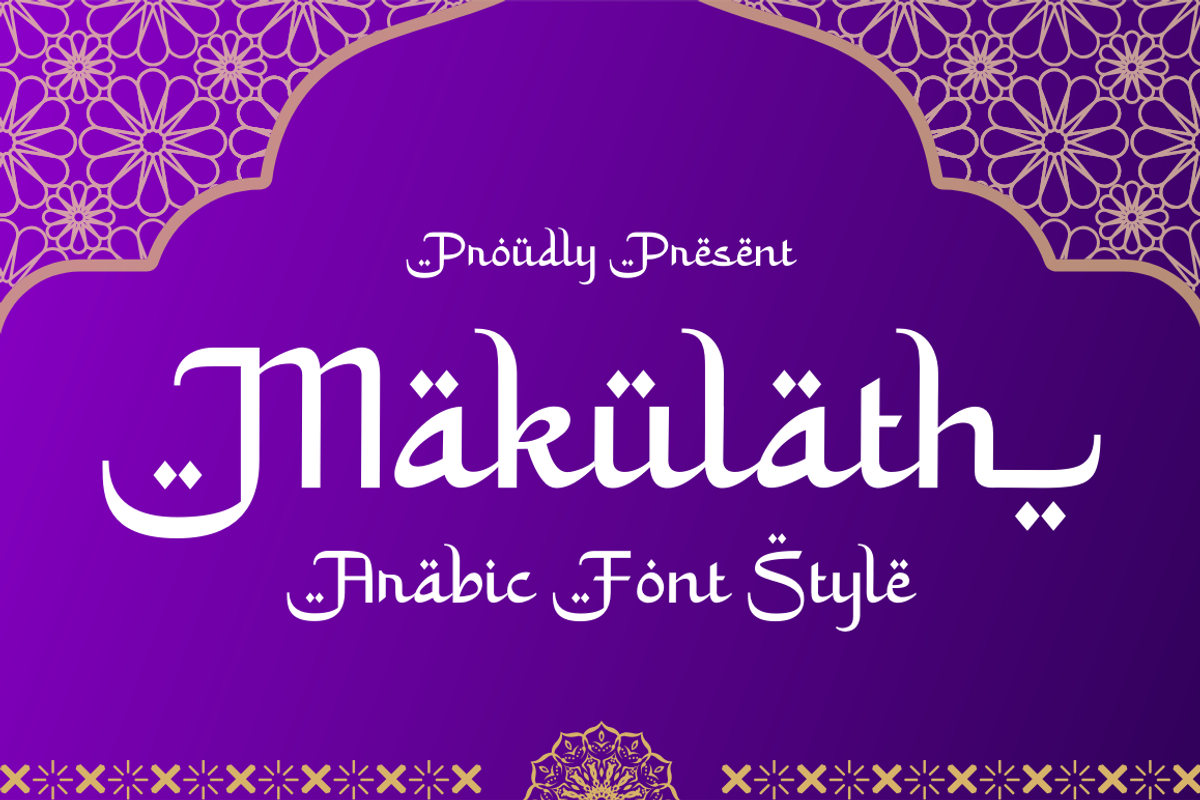
Makulath – Arabic Font Style Free Download
Sophisticated, elegant, and full of cultural richness, Makulath – Arabic Font Style Free Download is a beautifully designed Arabic-inspired typeface that combines traditional calligraphy with modern styling. Perfect for logos, branding, social media graphics, invitations, and any design that needs a touch of Arabic elegance, this font brings a distinctive, artistic flair to your typography.
With its fluid, graceful strokes and cultural authenticity, Makulath offers a stunning option for projects looking to incorporate the beauty of Arabic calligraphy in a modern context. It’s ideal for designers who want to evoke heritage while keeping things fresh and contemporary.